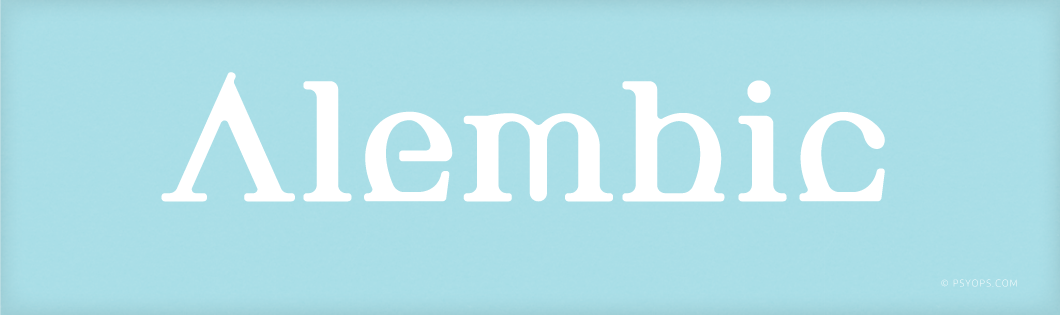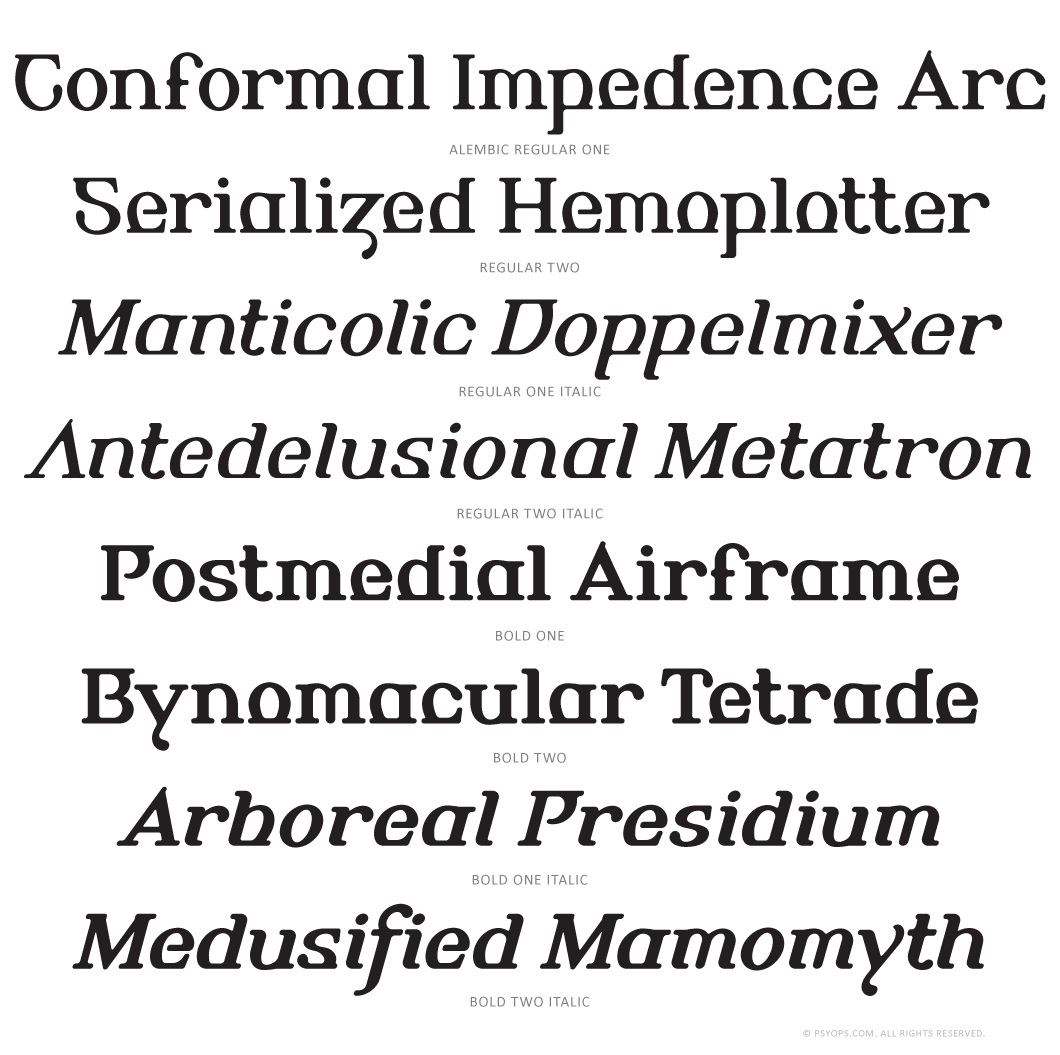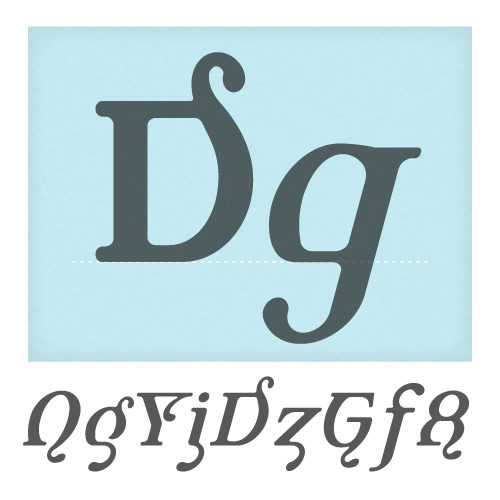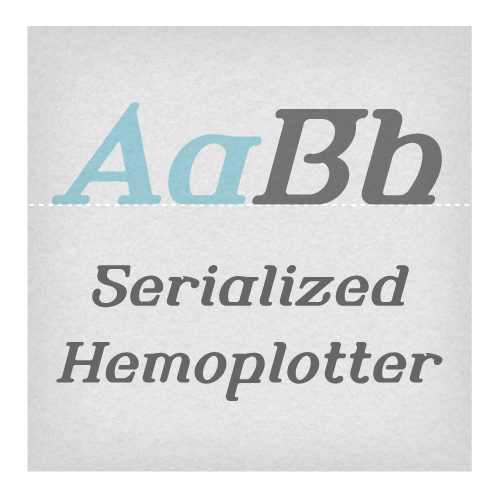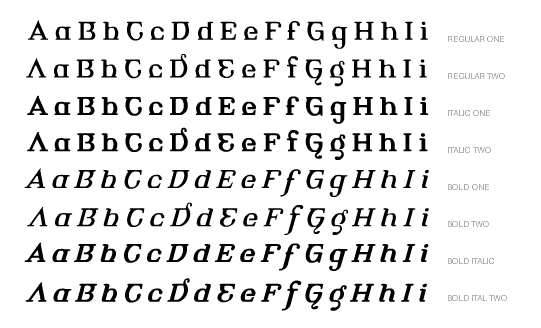
Alembic takes a rubberized skin and stretches it over a chopped alphabetic frame. Outlandish dewlaps flip a friendly bird at Bookman and other swash-prone Transitionals. Each cut comes with a ‘Two’ counterpart full of even more eccentric variants. Child safe and nontoxic.
The Alembic fonts include: Western and Eastern European characters, Stylistic Alternates, ligatures, and more.